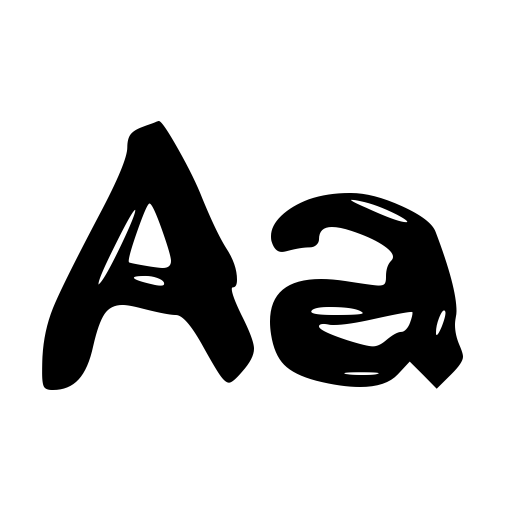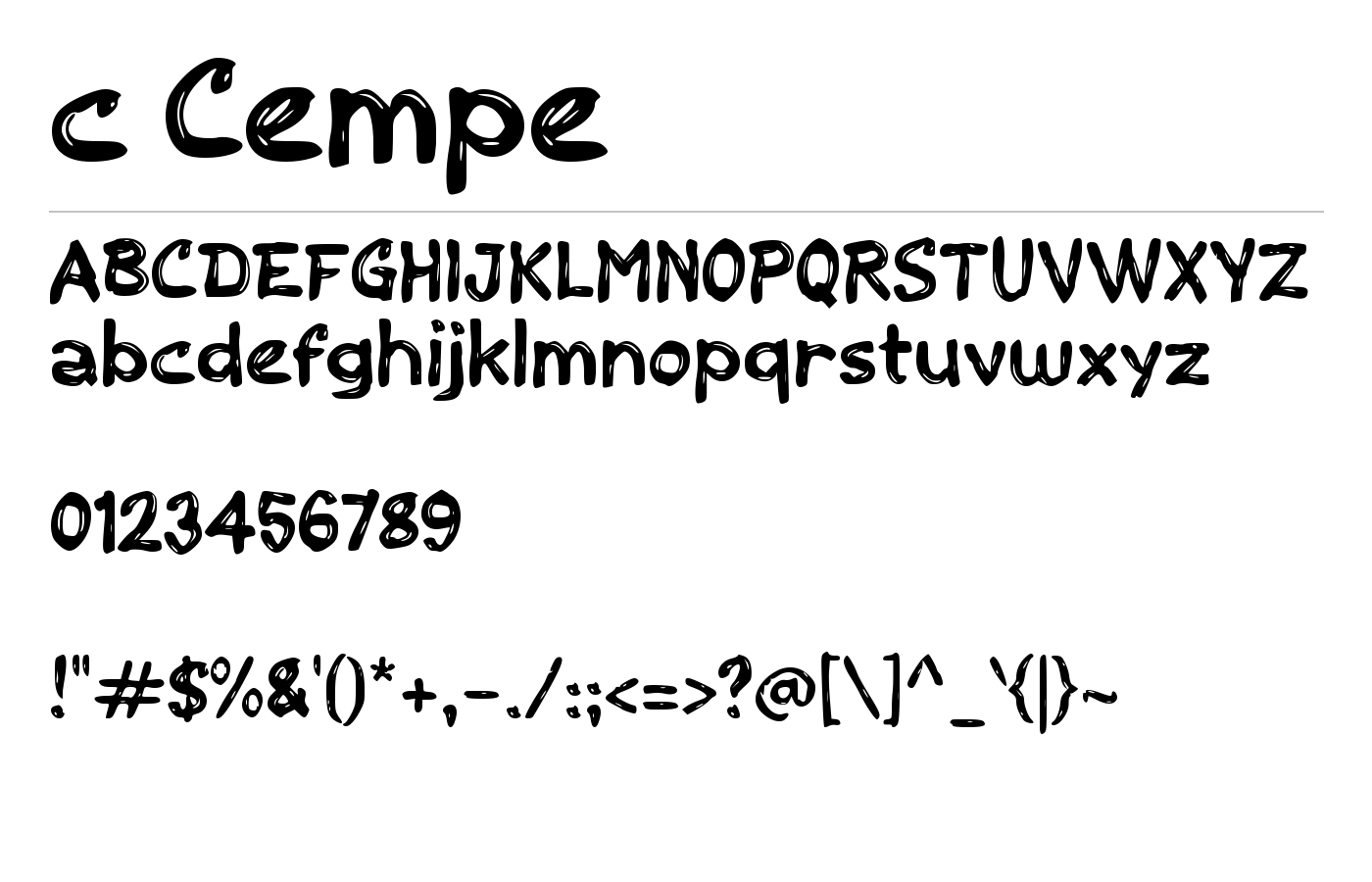
c Cempe is a bold, playful handwritten sans serif font with a lively and casual character. Its uneven strokes and slightly irregular shapes give it a friendly, artistic feel, making it ideal for creative and informal uses such as children’s books, fun branding, or quirky posters. This font works well when you want to convey personality and approachability with a hand-crafted touch.
c Cempe Font